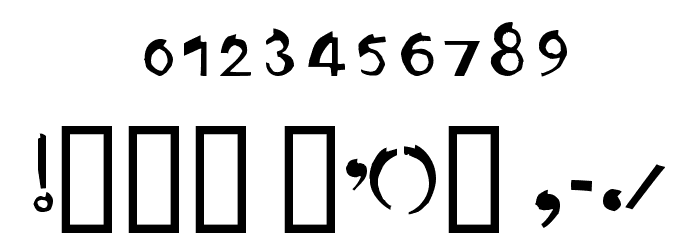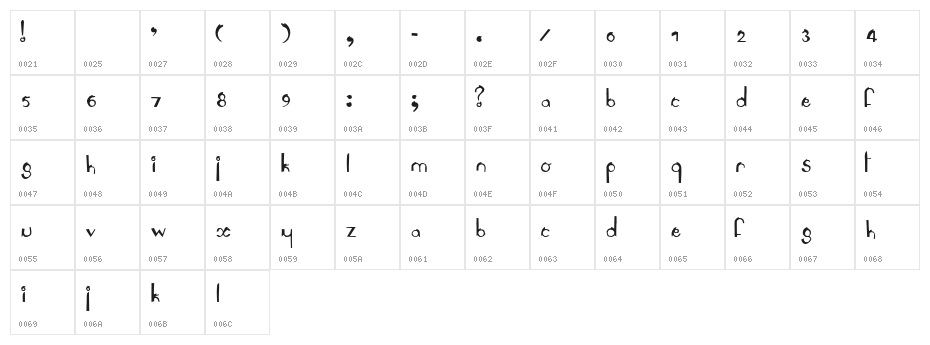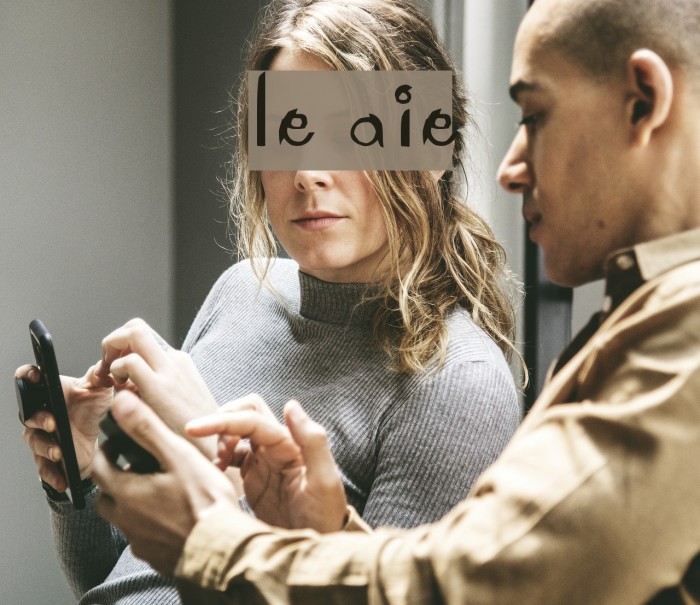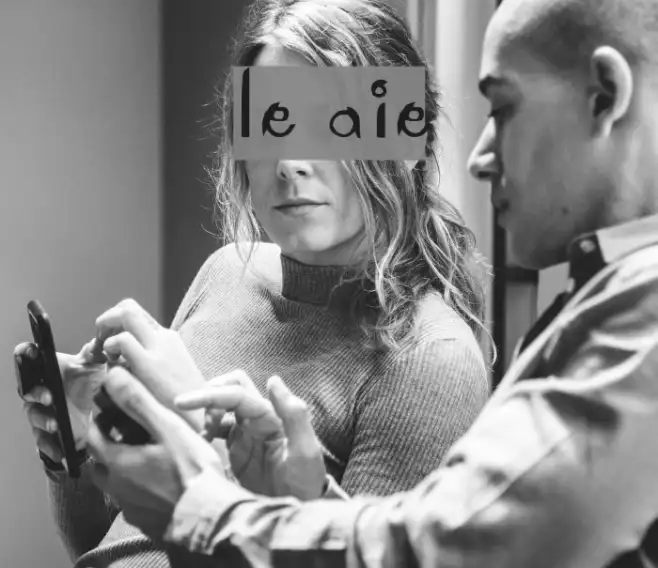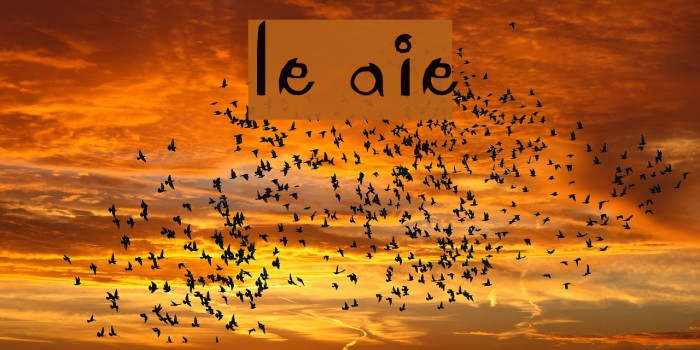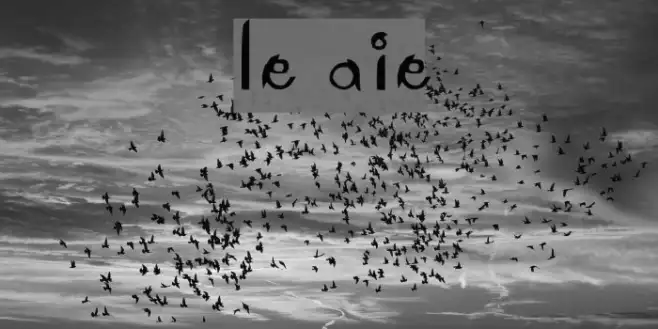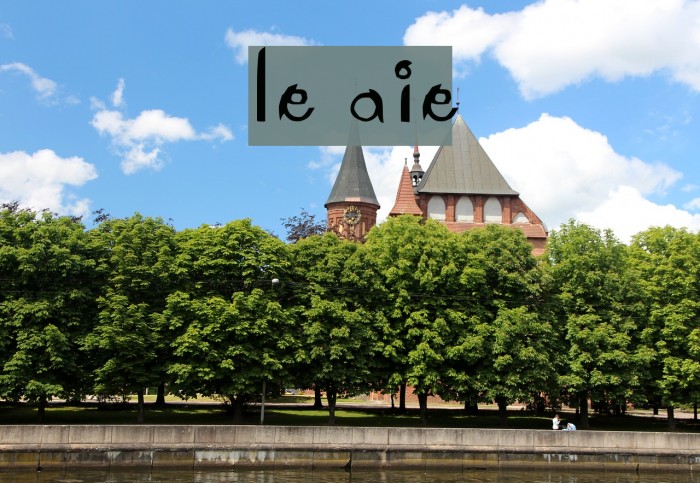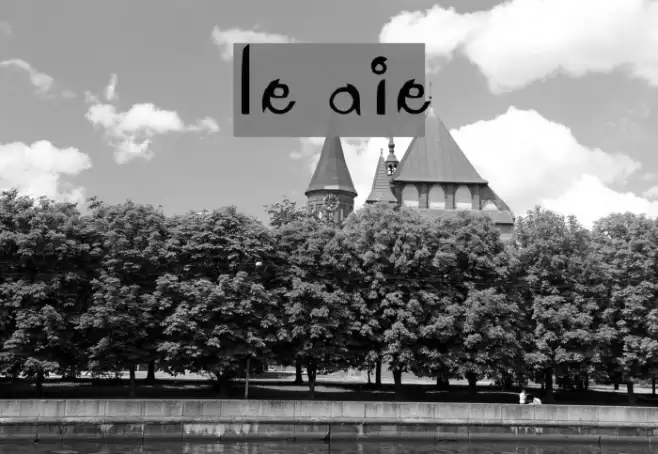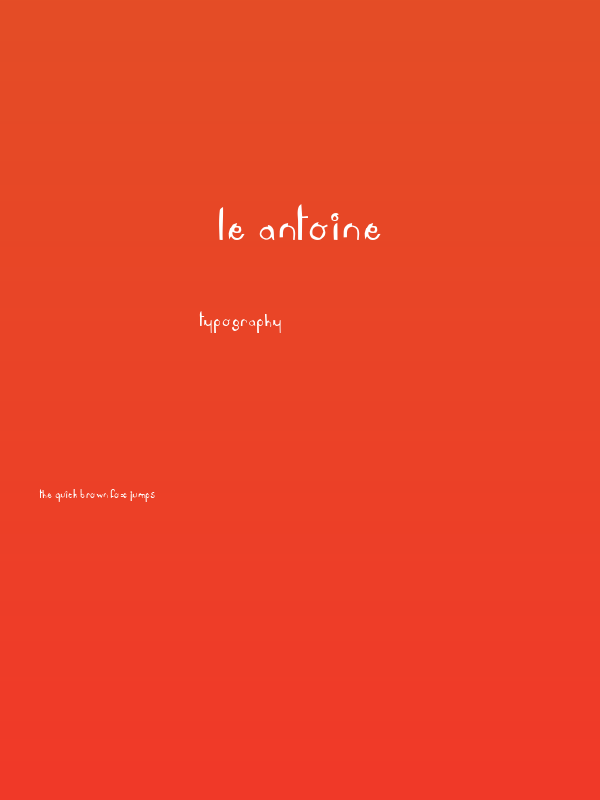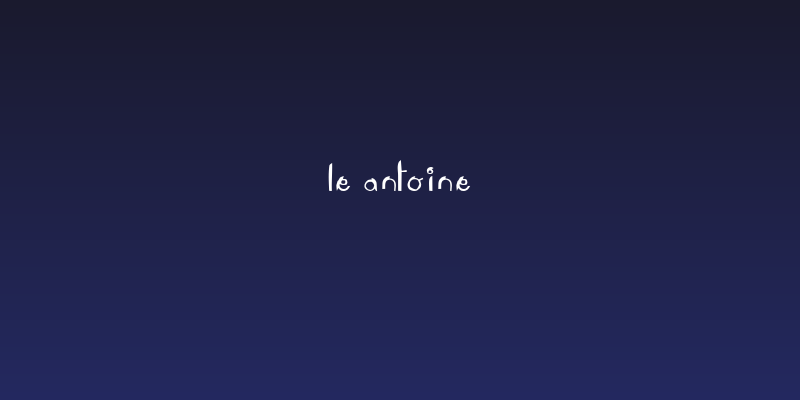
Le Antoine Font
Le Antoine Description
This font features a unique and artistic style with a playful yet sophisticated appearance. The characters are crafted with a mix of sharp and rounded edges, creating an intriguing visual contrast. The uppercase and lowercase letters maintain a consistent design language, with some characters exhibiting elongated vertical strokes and others having distinctive curves. The numerals are designed to complement the alphabet, maintaining the same artistic flair. Special characters are included, each with a creative twist that aligns with the overall aesthetic. This font is ideal for projects that require a touch of elegance and creativity.